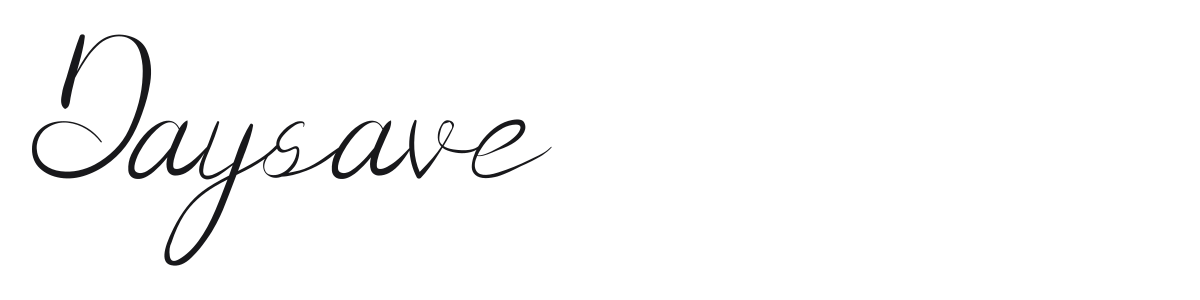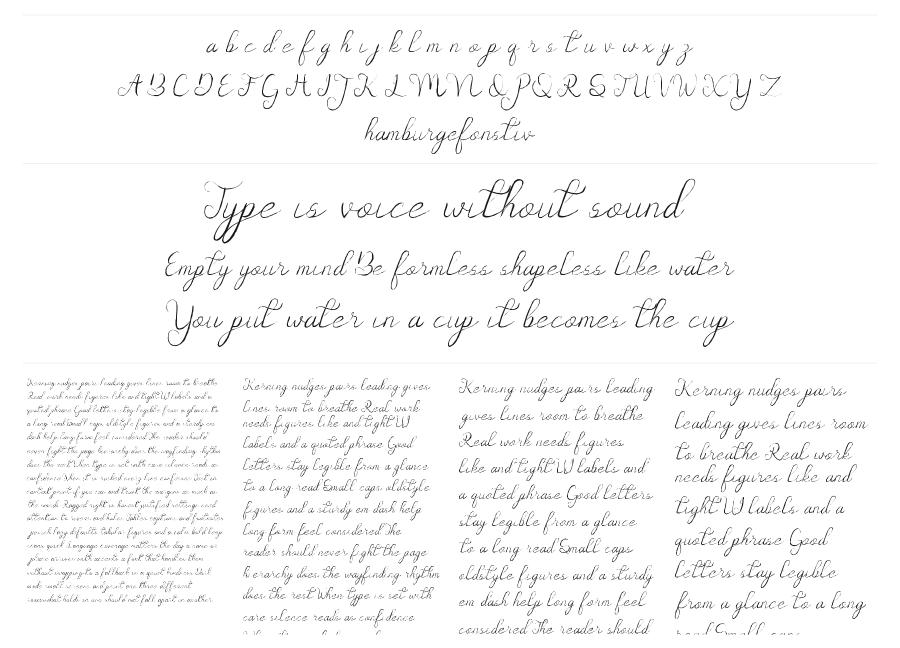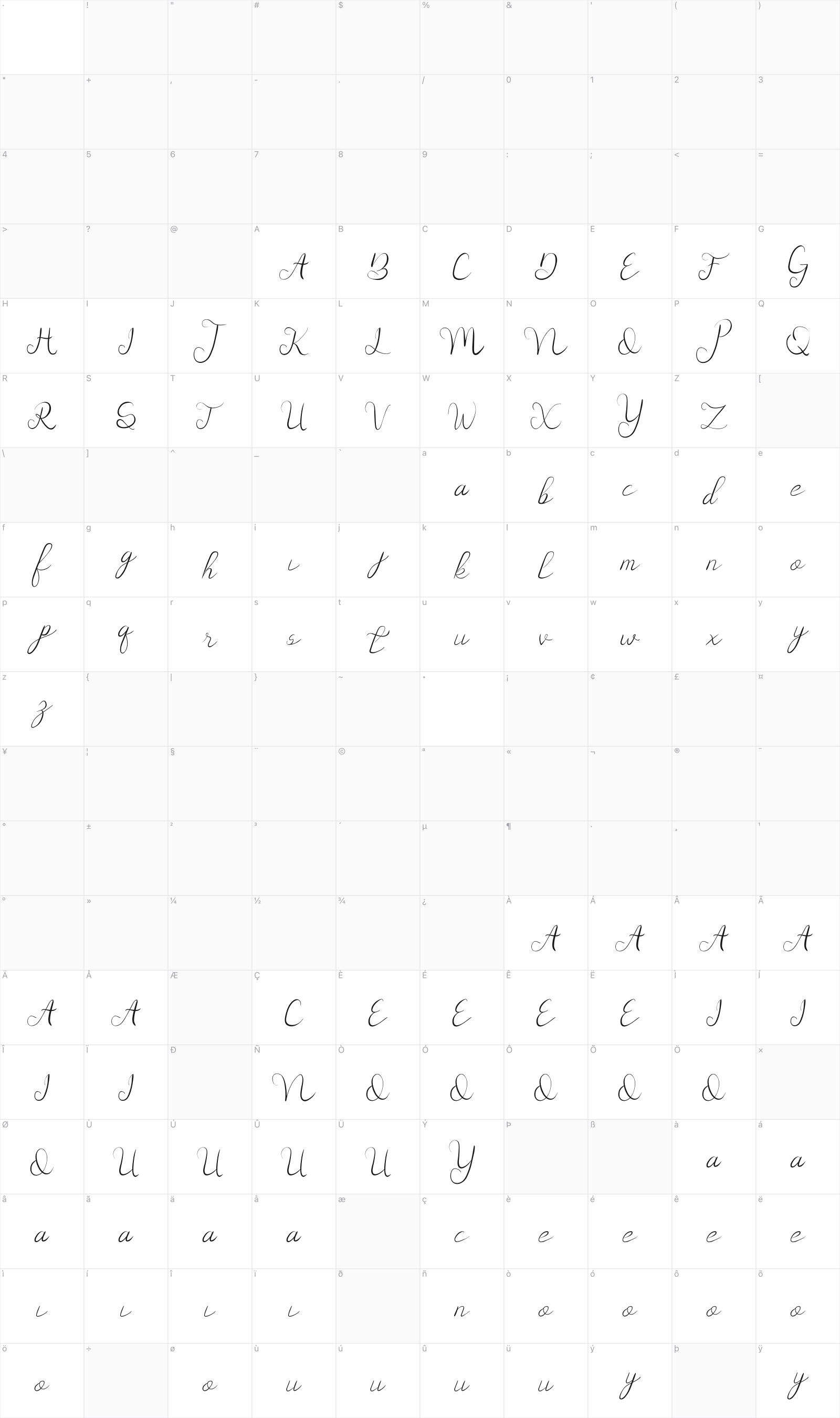
Daysave
Daysave is a flowing formal calligraphy script with long looping ascenders and delicate hairline strokes. The continuous cursive rhythm and generous flourishes give it a handwritten elegance reminiscent of copperplate penmanship. It works best at large sizes where those swooping loops and fine strokes can breathe.